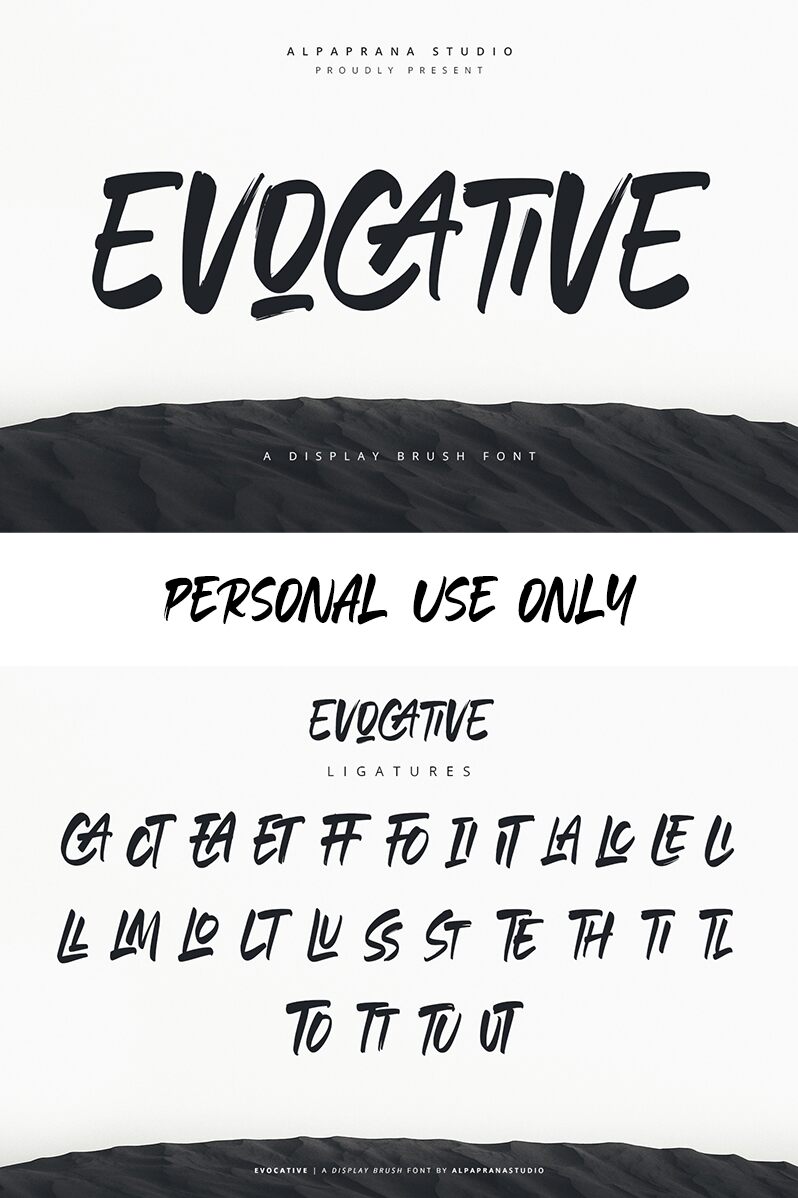
Evocative
Evocative, a captivating brush font crafted by the talented Alpaprana Studio, exudes a captivating charm that commands attention. Evoking a sense of spontaneity and artistry, this dynamic typeface seamlessly blends the organic flow of handwritten strokes with a refined elegance. Each letter dances across the page, infusing the written word with a raw, expressive energy that is both visually striking and emotionally evocative.
Evocative's versatility makes it a versatile choice for a wide range of design applications, from editorial layouts and branding materials to packaging and stationery. Its unique character lends itself beautifully to projects that seek to convey a sense of authenticity, passion, and individuality, effortlessly elevating the visual impact of any design.